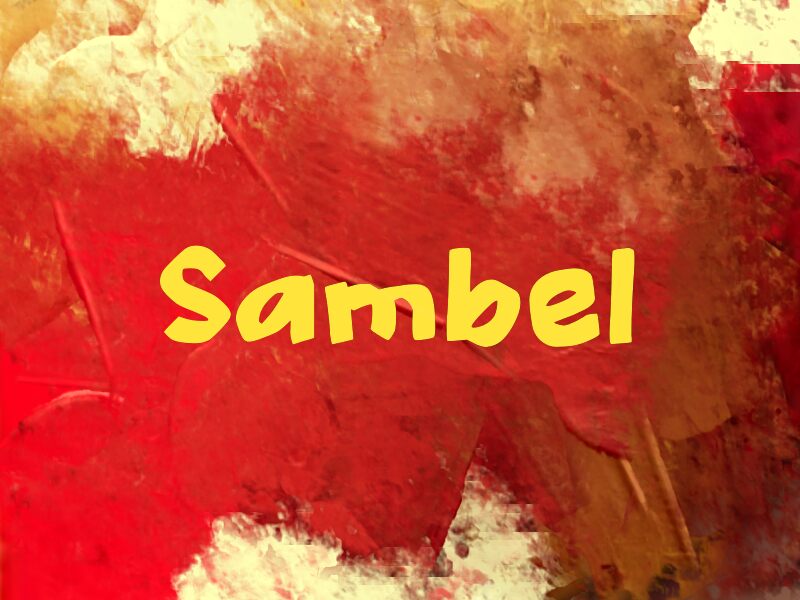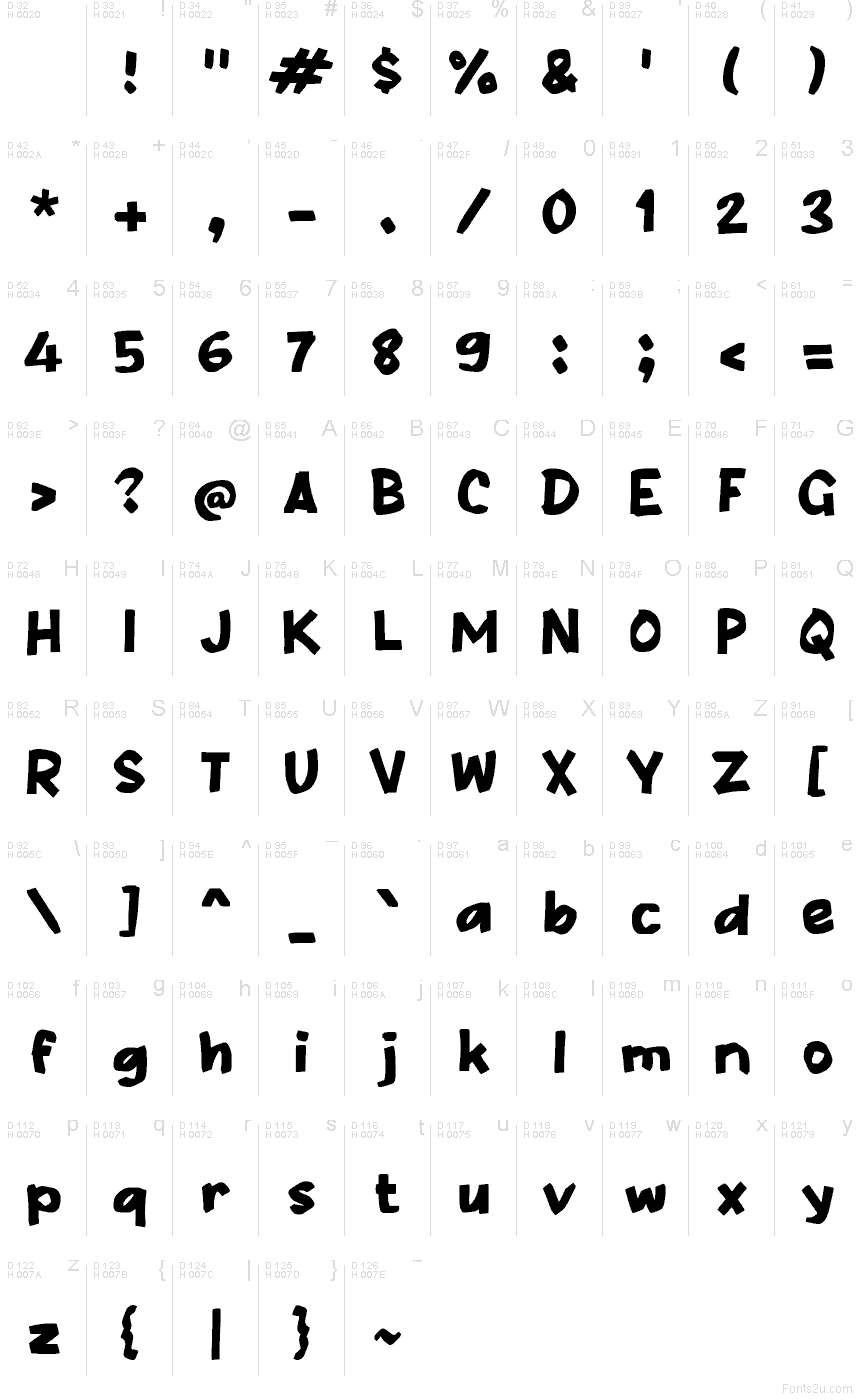
Sambel
Sambel font by wep is a free comic display typeface with big, inky curves and chunky, slightly uneven strokes that feel hand-drawn and spontaneous. The letters look like they’ve been brushed in thick marker, giving headlines a bouncy, energetic rhythm without becoming messy or hard to read. It has a bold, friendly presence that jumps off the page or screen, making even short words feel loud and expressive.
Using Sambel, you can bring that punchy, comic-book energy to posters, kids’ products, YouTube thumbnails, game titles, stickers, and playful logo lockups. This free font shines when you set it large and give it room to breathe, then pair it with a clean sans serif for smaller supporting text.